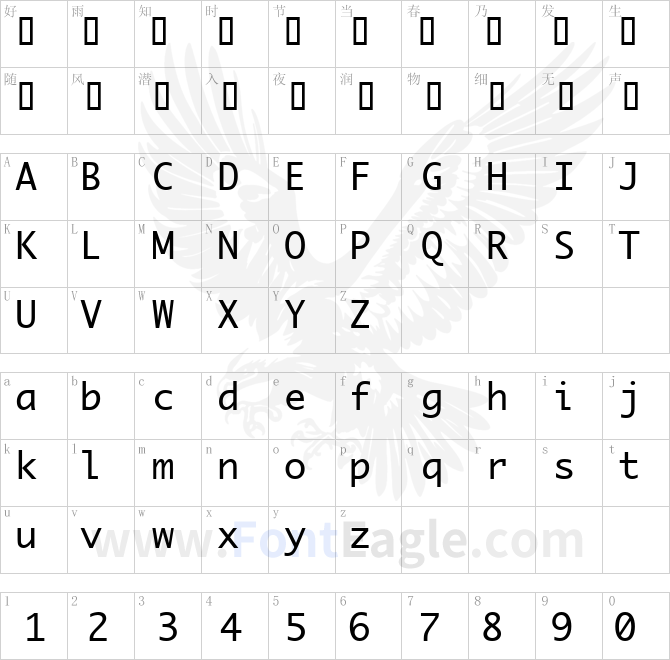
- Font name:Monaco
Monaco is a great font, widely used in graphic design, single-page menu design, poster design and other fields, and is deeply loved by designers.Monaco download.